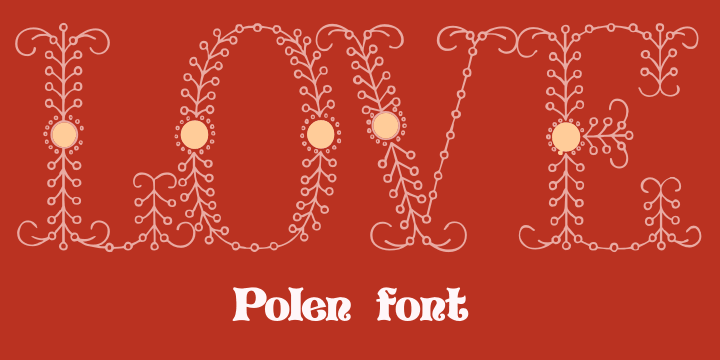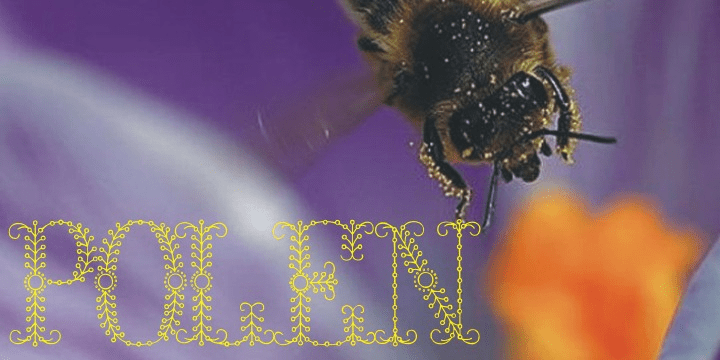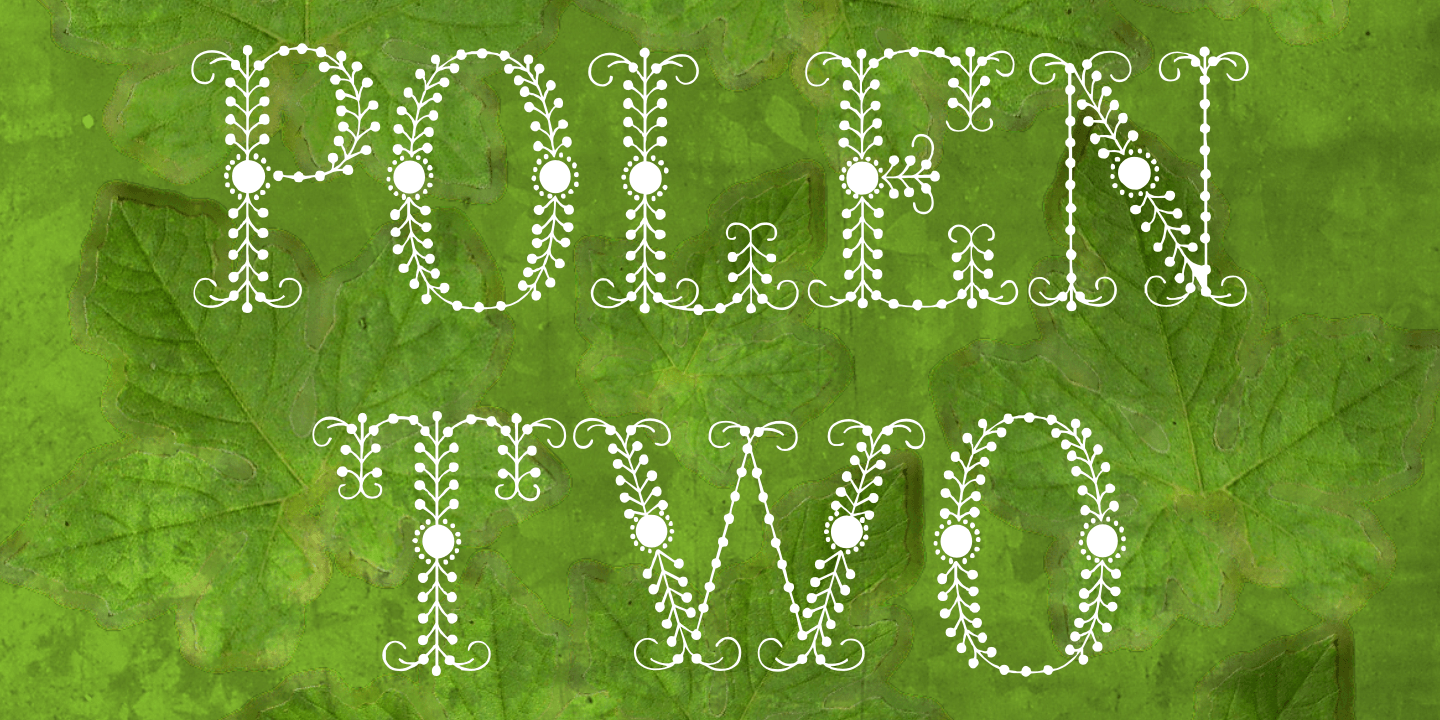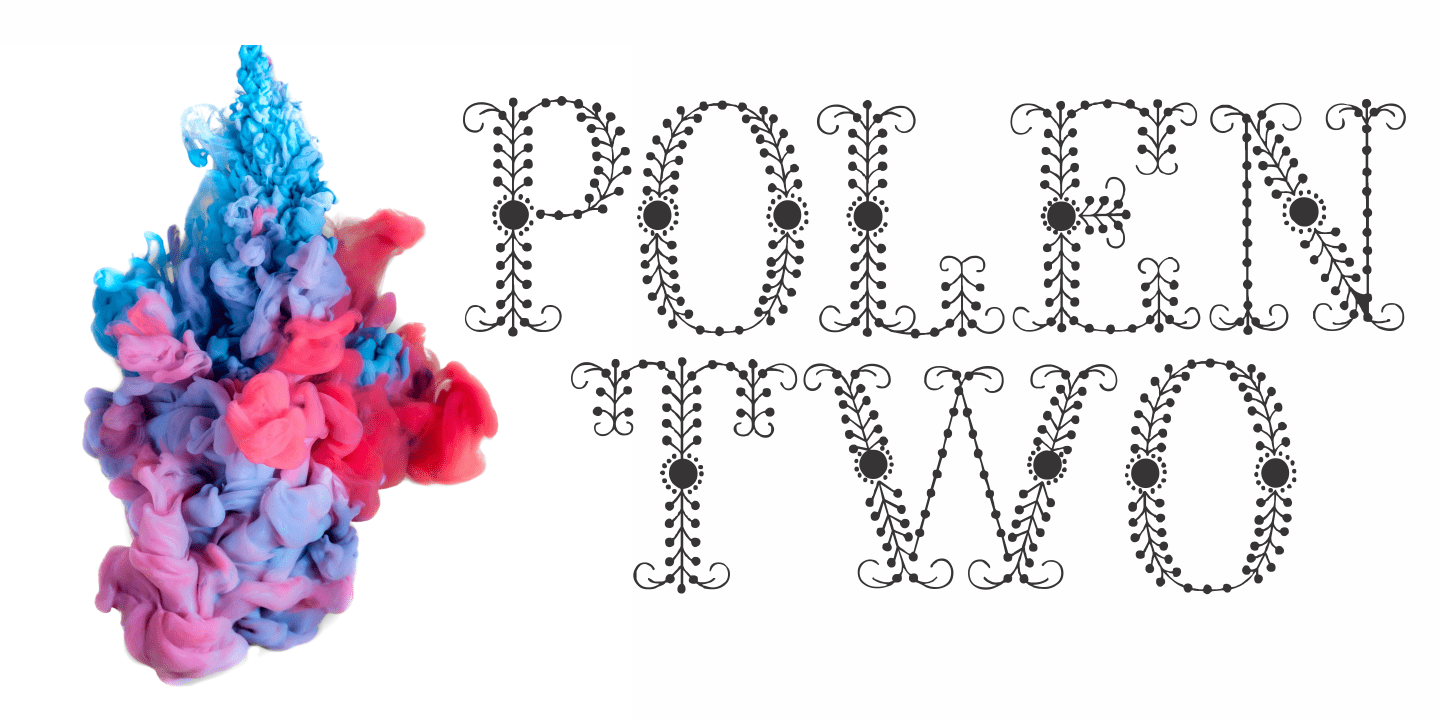
Polen
Font Family by Intellecta Design
Polen is a soft, well elaborated and unusual font design. Works great when used for display reasons only. Contains only uppercase alphabet designs.
Polen Regular
Polen Two
Polen Shadow